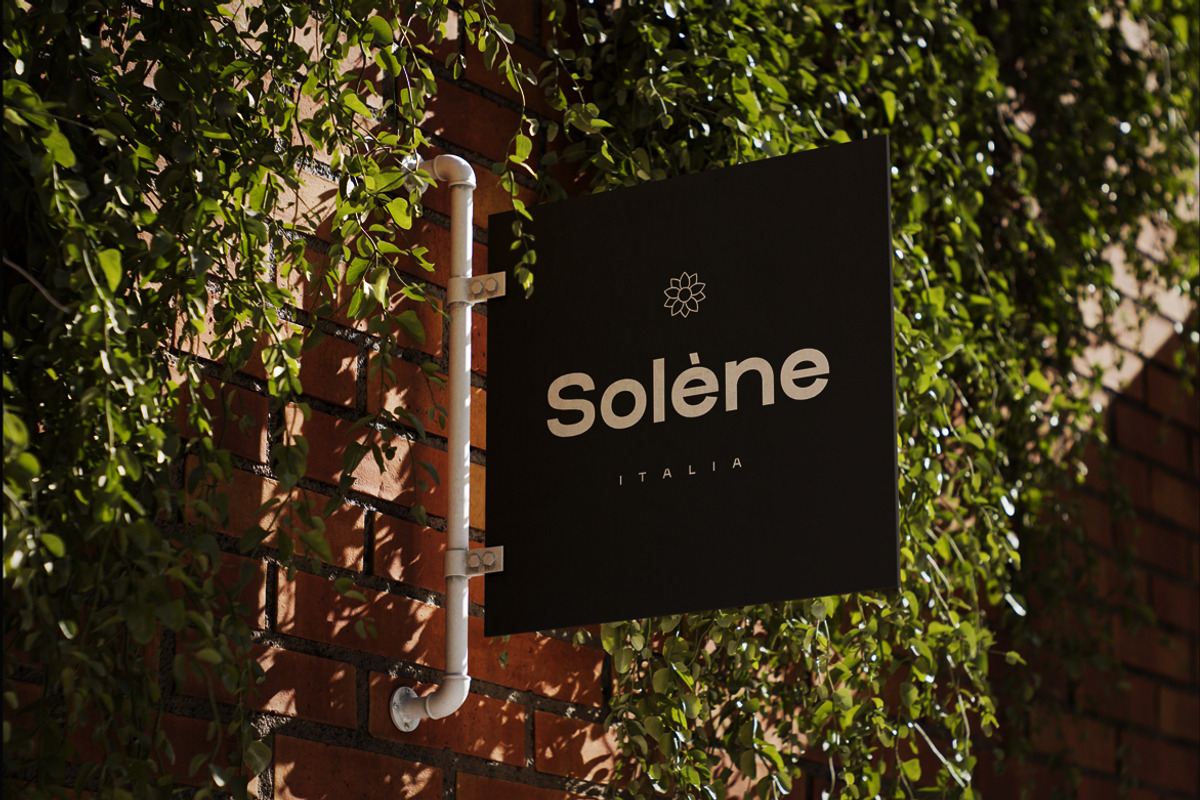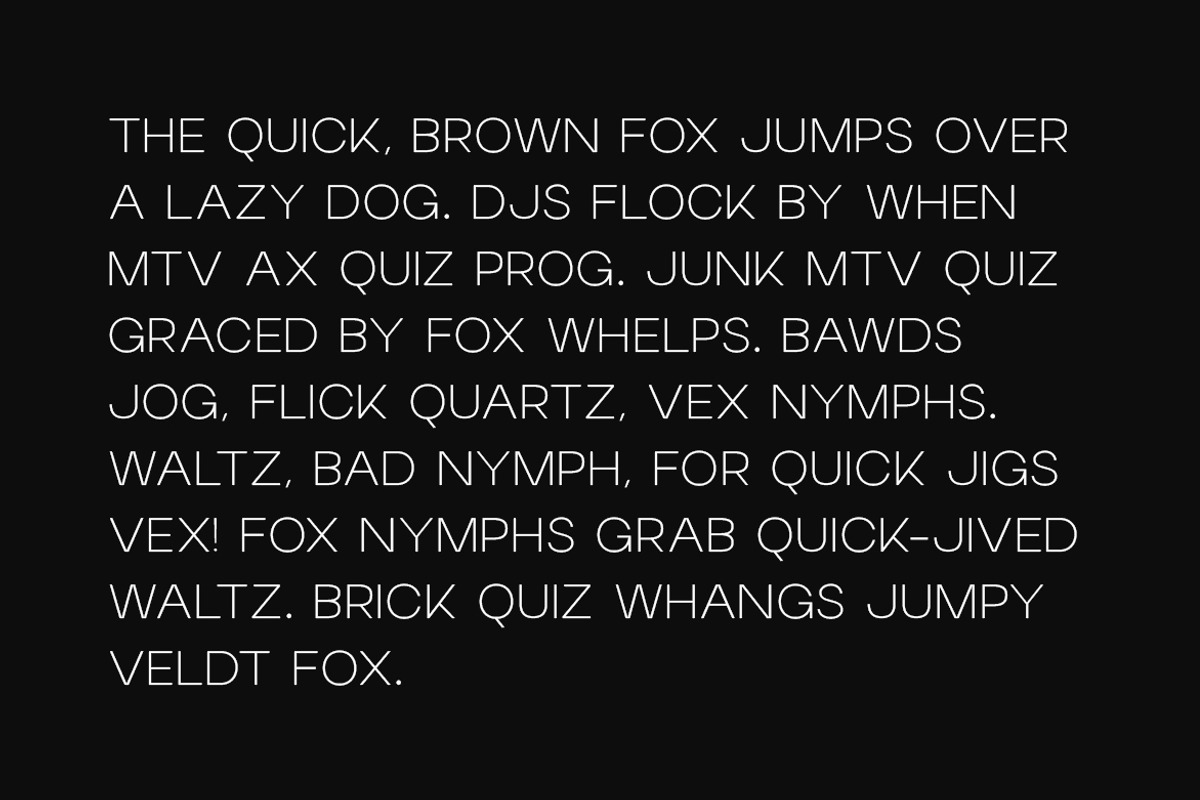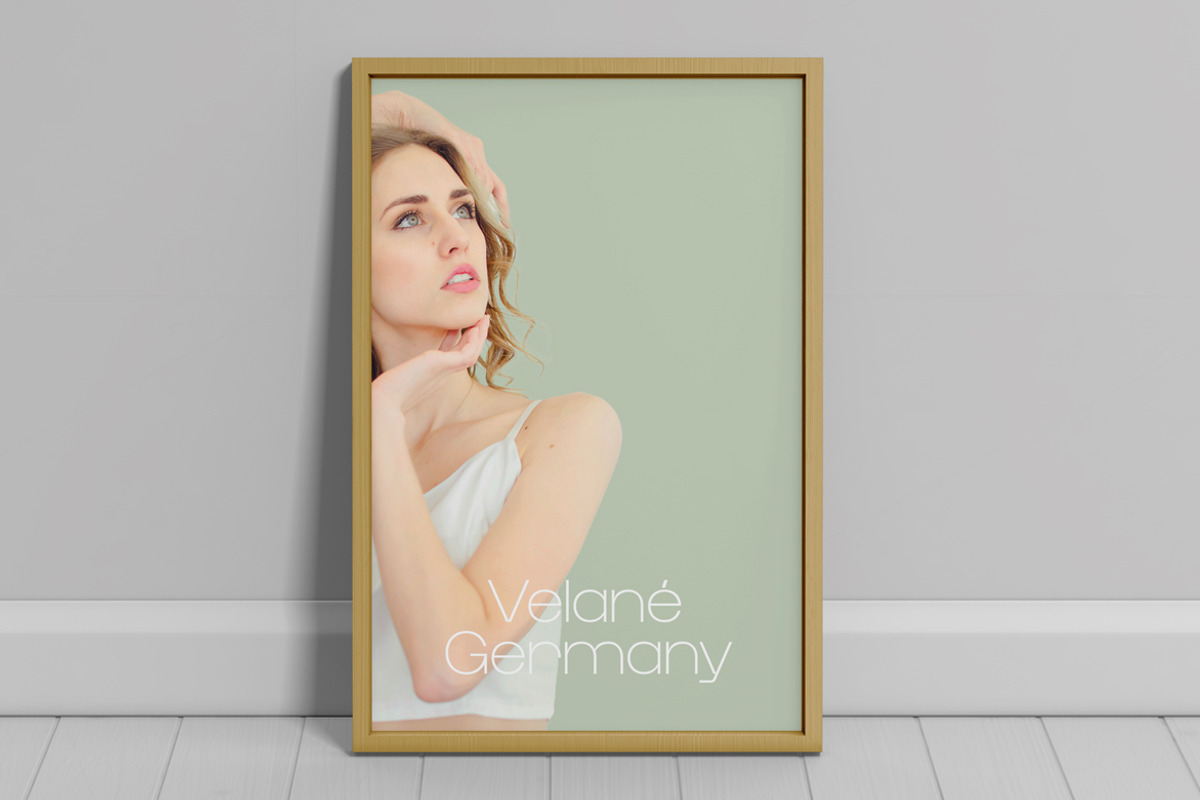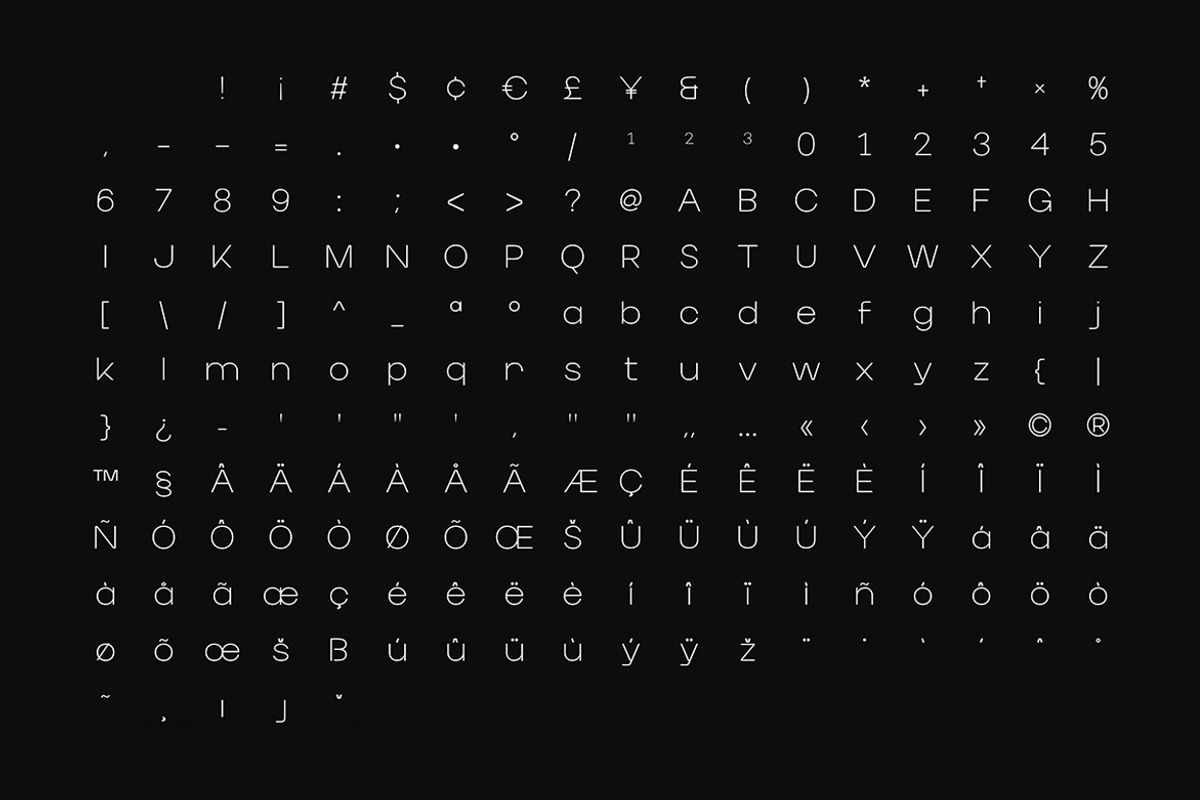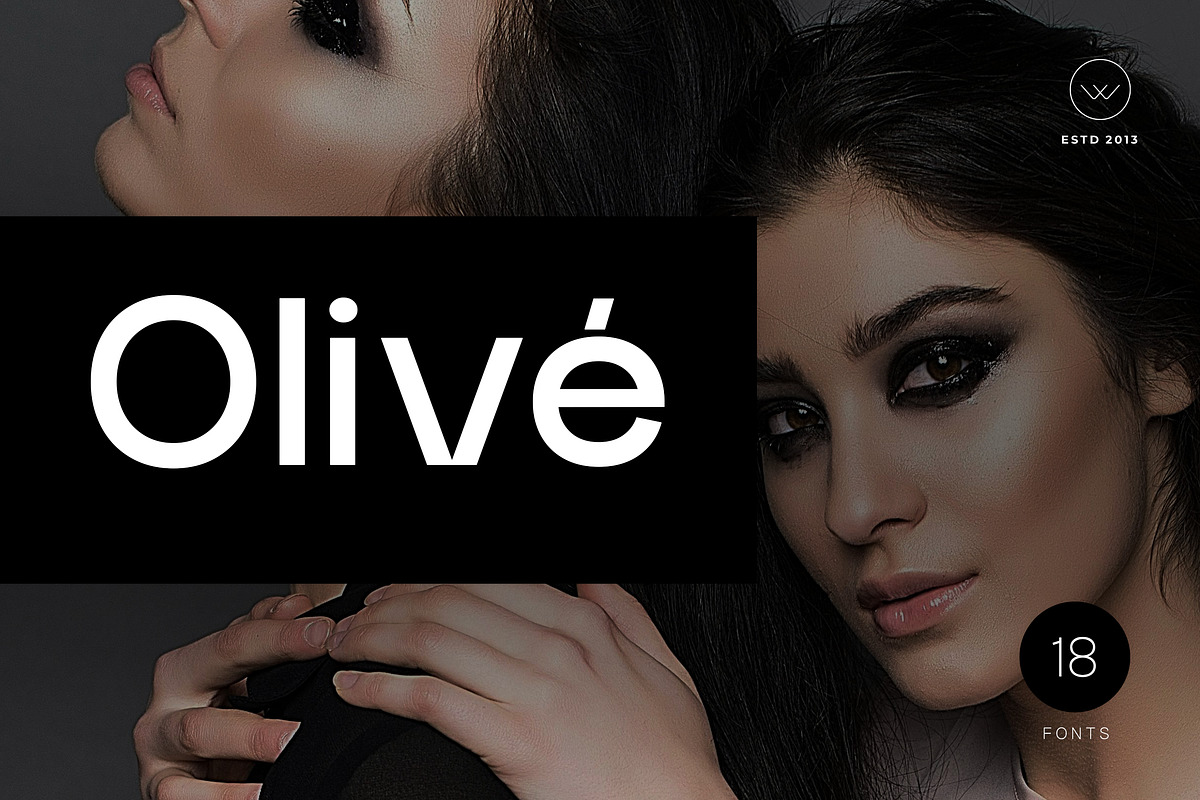
olive – Modern and minimal Sans
Olivé Sans-Serif Font Family is a modern, high-fashion typeface crafted for elegance and clarity. Its smooth letterforms, subtle curves, and balanced proportions make it an ideal choice for projects that need both style and readability.
Inspired by the grace of fashion culture, Olivé offers nine carefully designed weights, from delicate Hairline to bold Black. Each weight includes a matching italic, giving you a complete toolkit for versatile design. Whether you’re working on magazine headlines, luxury branding, stylish lookbooks, or minimalist web layouts, the Olivé Sans-Serif Font Family provides refined readability with a striking visual impact.
Olivé supports over 70 languages with extended Latin characters. Accented letters such as á, à, â, ä, é, è, ê, ë, and many more are included, ensuring smooth use in multilingual projects.
Designed by Webhance Studio, Olivé is more than just a typeface—it is a modern design essential. If you want a sans-serif font that communicates elegance, sophistication, and versatility, the Olivé Sans-Serif Font Family is the perfect choice for your next project.